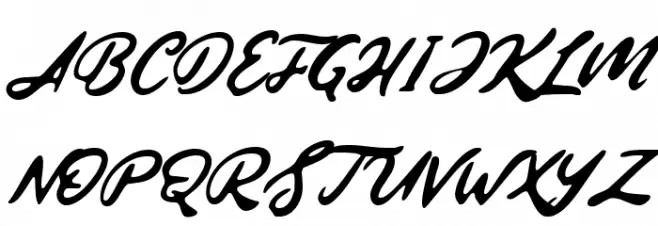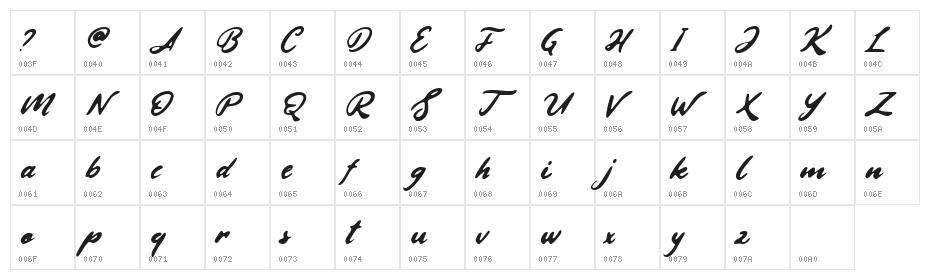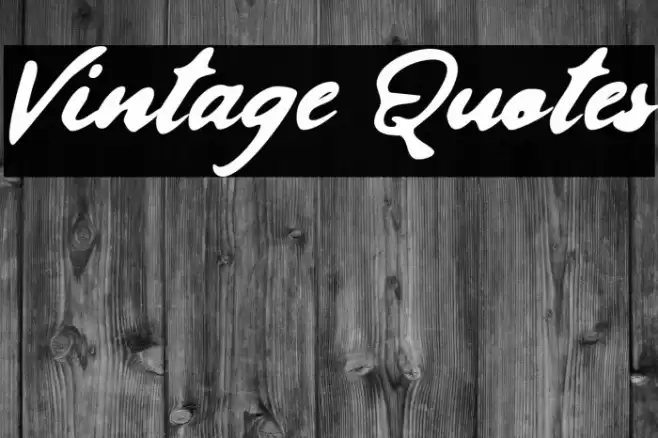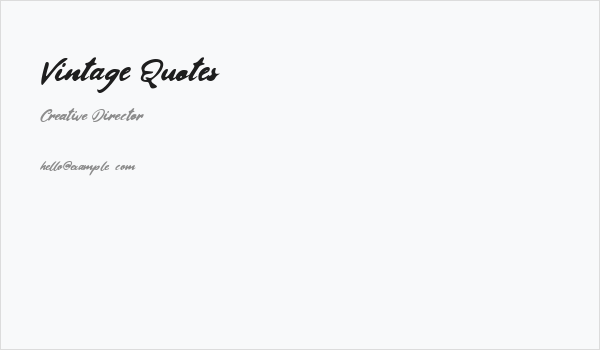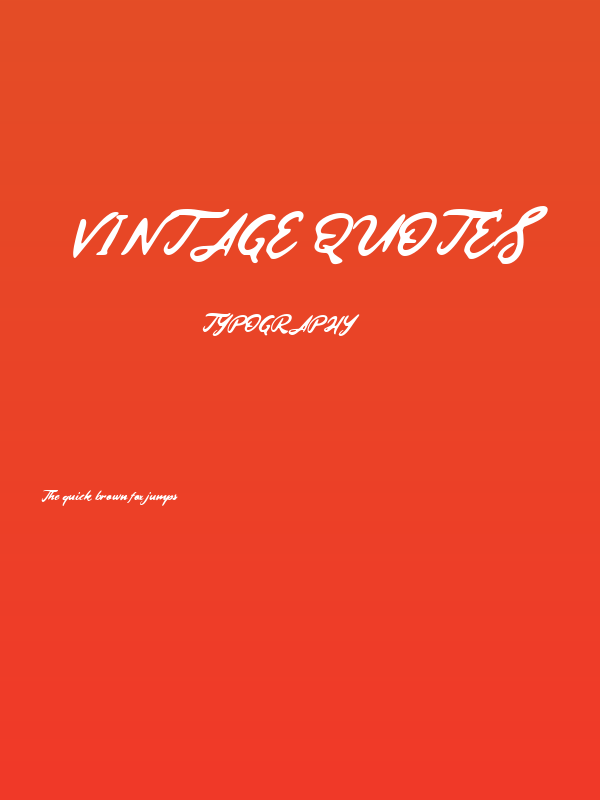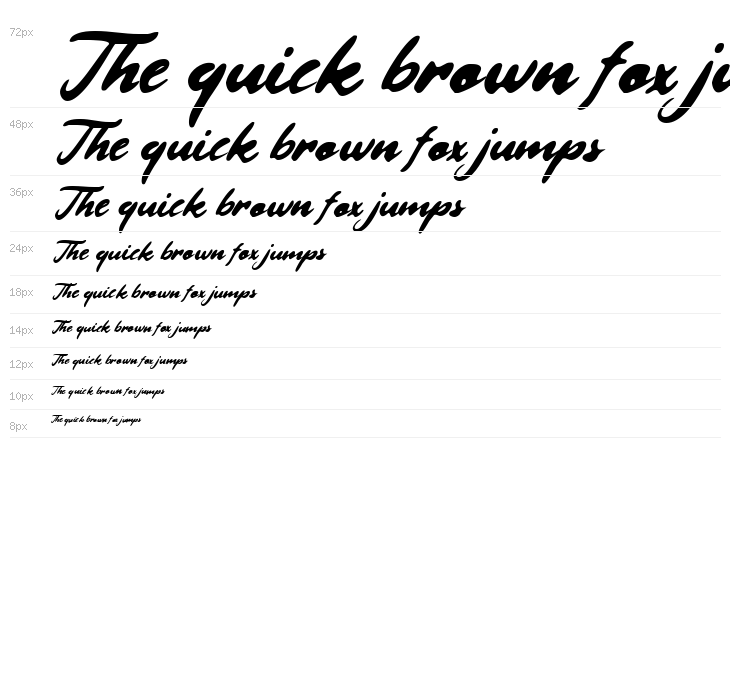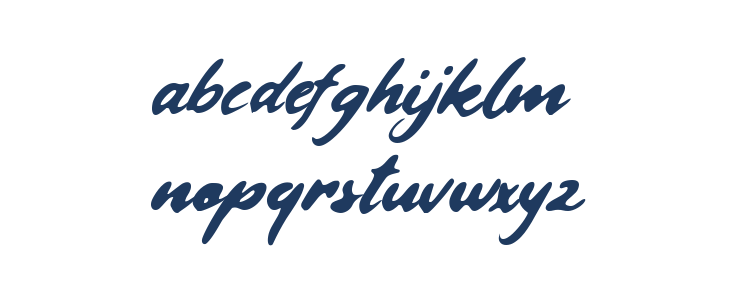
Vintage Quotes Font
Vintage Quotes Description
This font exudes a vintage charm with its flowing, cursive script style. The characters are elegantly connected, creating a sense of fluidity and movement. The uppercase letters are bold and prominent, while the lowercase letters maintain a consistent style with slightly exaggerated loops and curves. The font's overall appearance is both classic and decorative, making it suitable for designs that require a touch of nostalgia and elegance. Its bold strokes and smooth transitions between letters enhance readability while maintaining an artistic flair.
| Proposed Projects | Ideal for vintage-themed posters, wedding invitations, branding for boutique shops, and decorative quotes. |